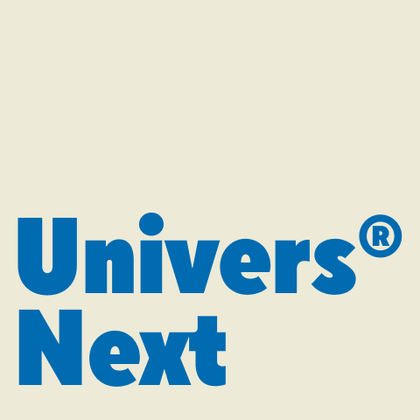
Fonts similar to Univers Next
If you’re seeking a versatile sans serif with impeccable functionality, our collection is an excellent solution. TypeType offers modern alternatives that uphold the best traditions of Swiss typography. These fonts combine a neutral aesthetic with current technological solutions. Univers® Next has become a benchmark for many professional designers. We have developed typefaces that rival its quality, embodying the original’s main strengths: recognizable proportions, clear forms, and versatility. At TypeType, you’ll find professional solutions for any project.
If you are tired of overused typefaces and are looking for fonts similar to Univers Next, check out our best free-to-try Univers Next alternatives, which have similar characteristics as well as new, unique design features. Some of the fonts belong to the same type category, and others are suitable for the same tasks or have similar traits but stand out for their distinct details or proportions.
Find a great Univers Next replacement font and try to recreate a similar mood and capture the feeling you aim for by using it in your designs. Each font presented on this page is a twin of the Univers Next font, practically identical to it.